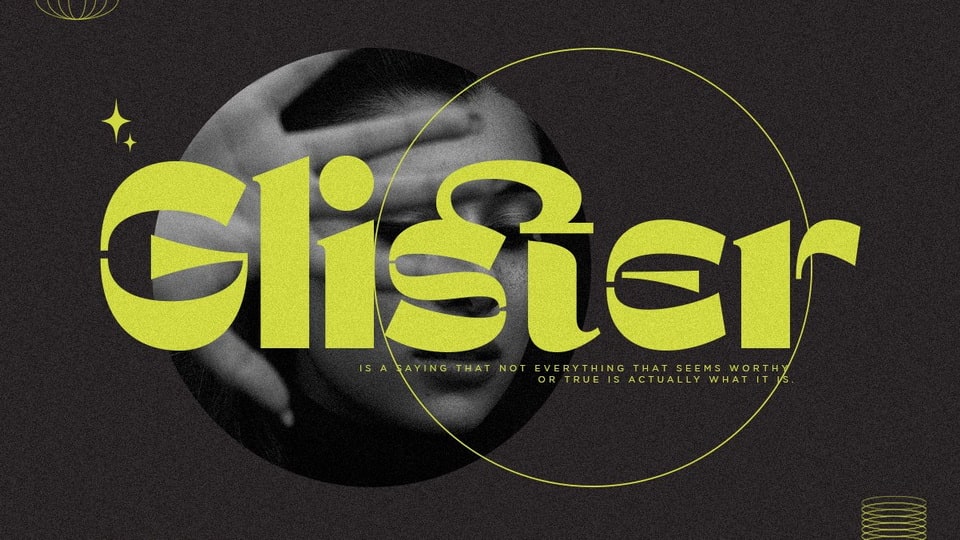
Download Glister font, a stylish and modern display typeface with an incredibly exquisite feel. Use Glister font to bring your creative designs to the highest levels.
Designer: Pentagonistudio